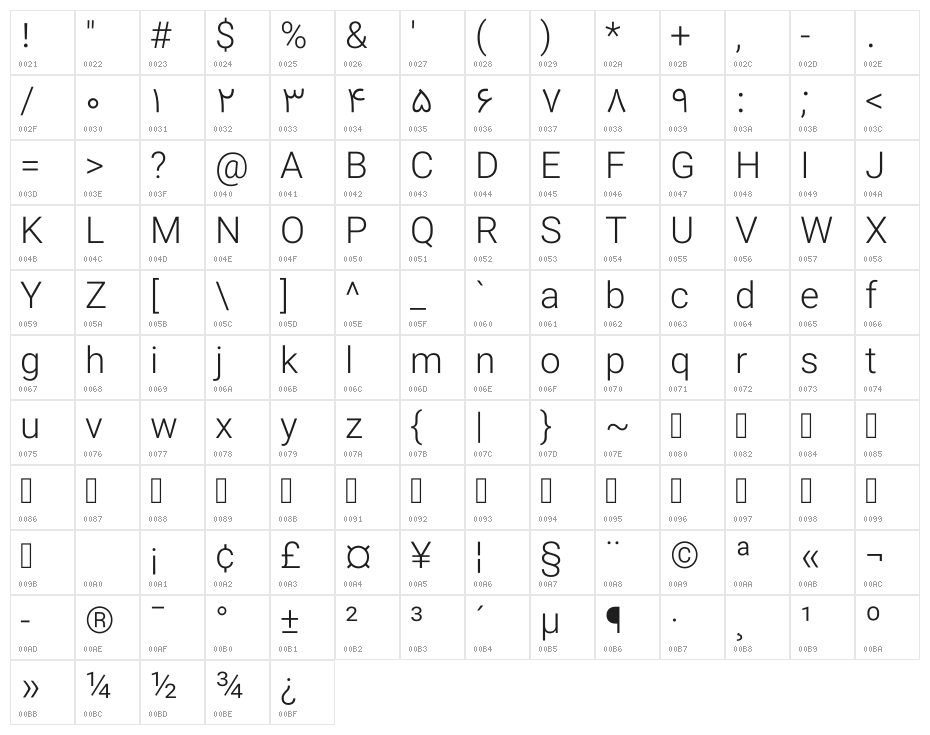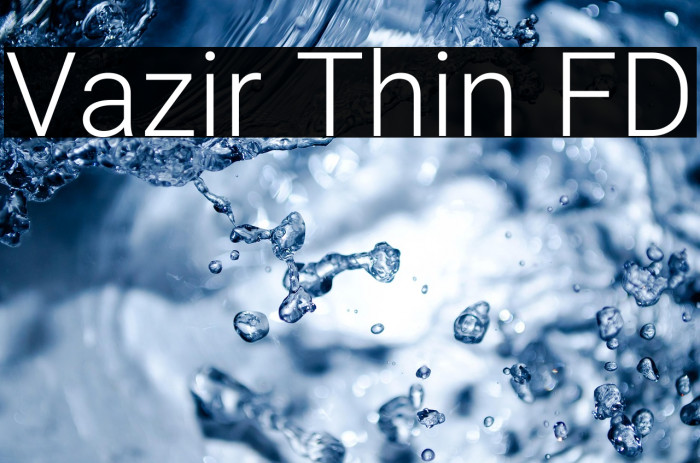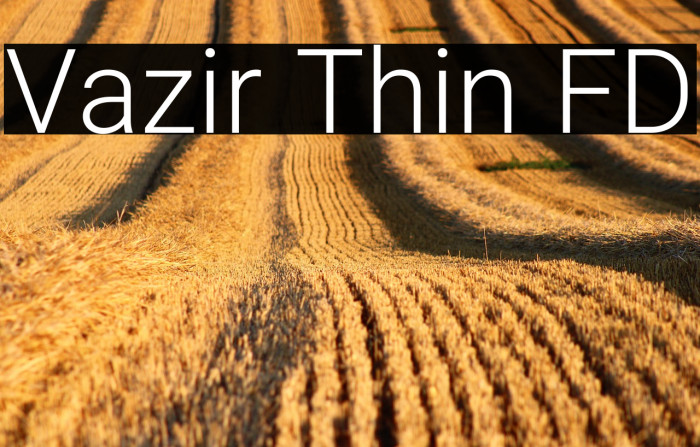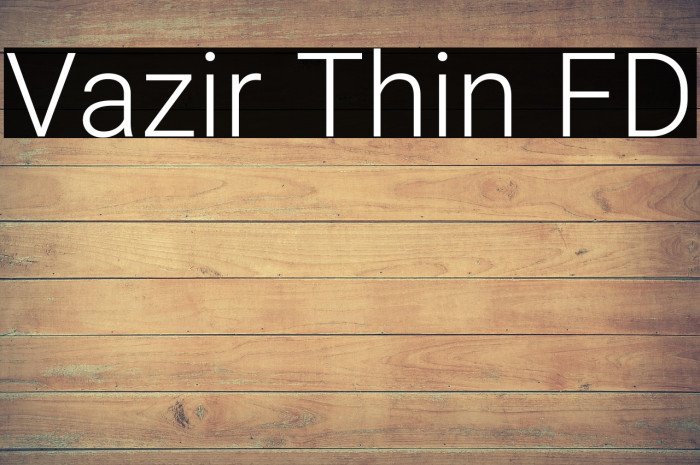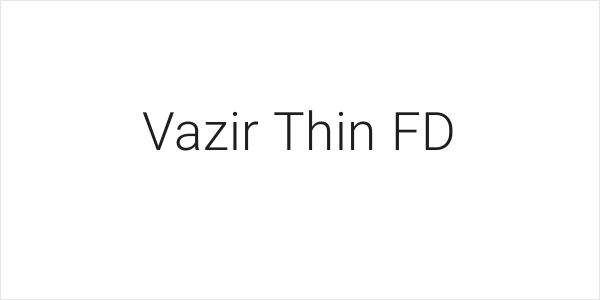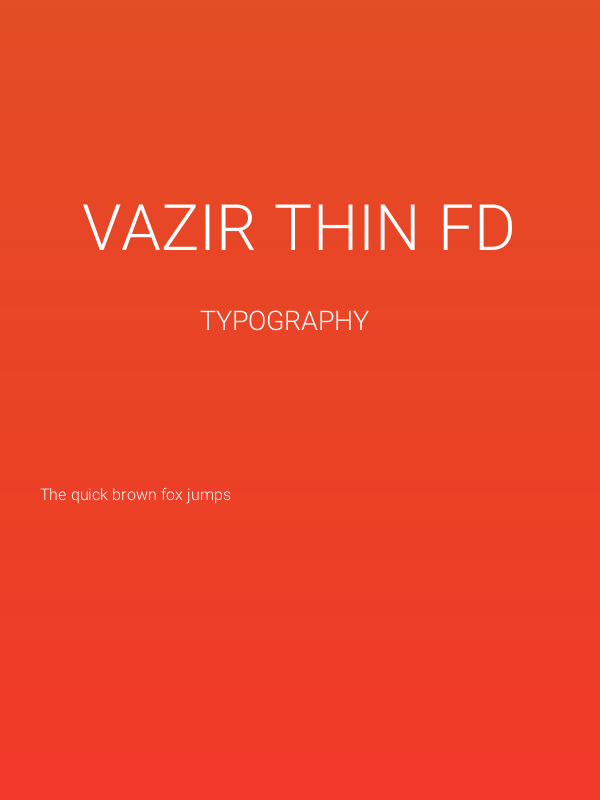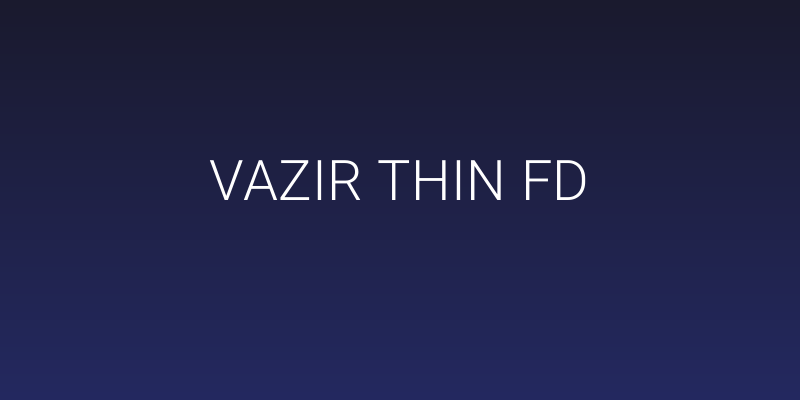
Vazir Thin FD Font
Vazir Thin FD Description
This font presents a clean and modern aesthetic with a thin, sans-serif style. The characters are uniformly designed with a consistent stroke width, giving it a sleek and minimalist appearance. The uppercase and lowercase letters are well-proportioned, maintaining a harmonious balance across the alphabet. The numerals and special characters are crafted with the same attention to detail, ensuring readability and versatility. This font's simplicity and clarity make it suitable for a wide range of applications, from digital interfaces to print media.
| Proposed Projects | Ideal for web design, mobile apps, corporate branding, and minimalist print layouts. |